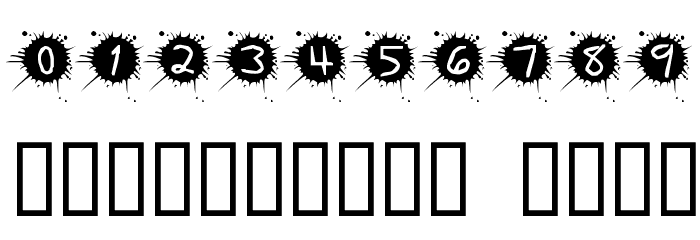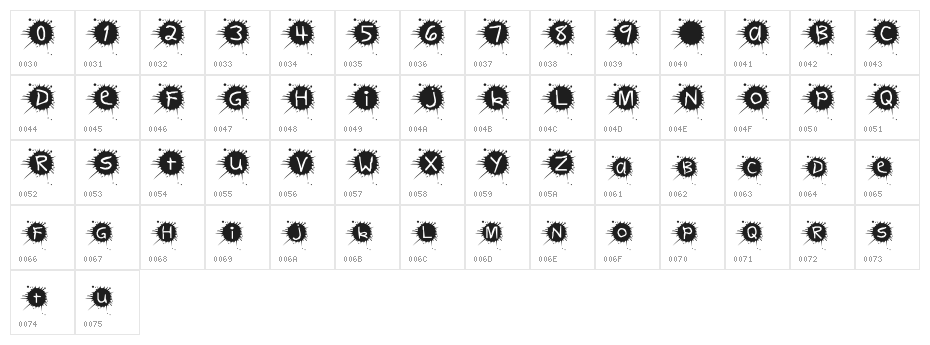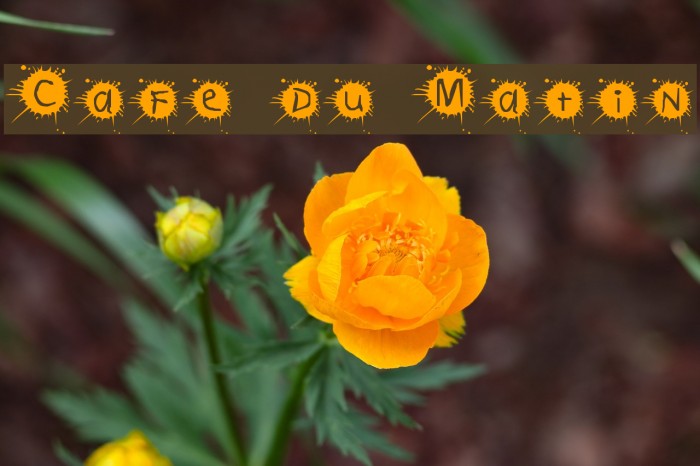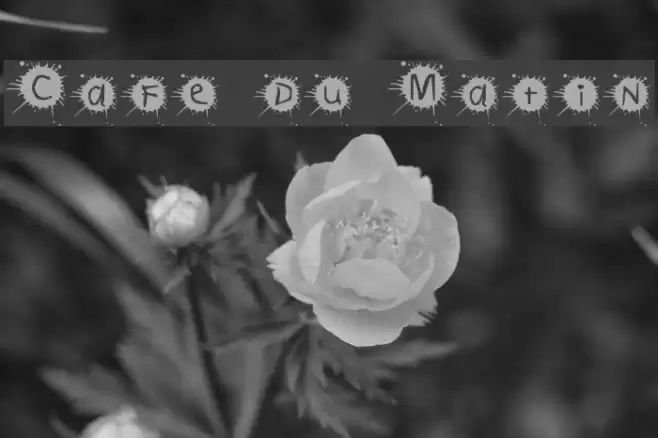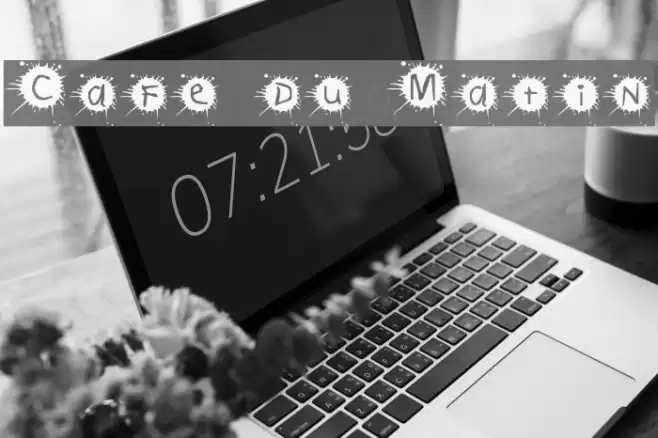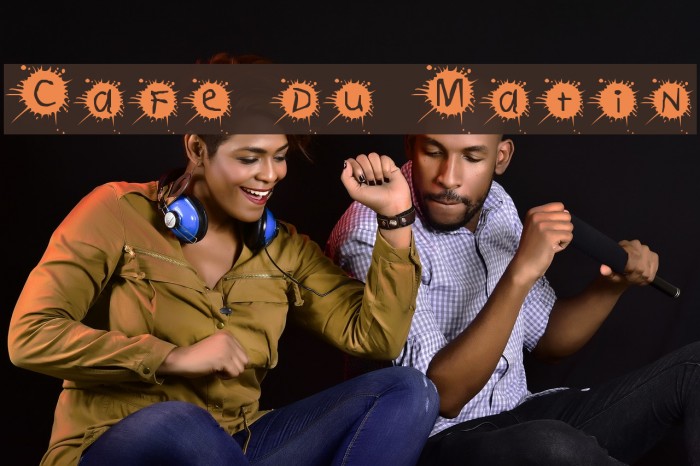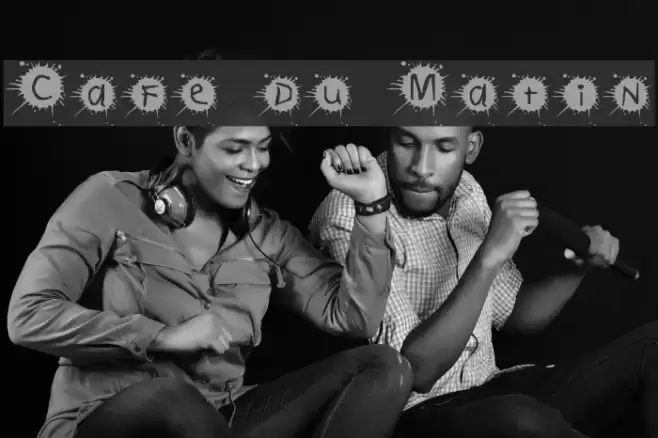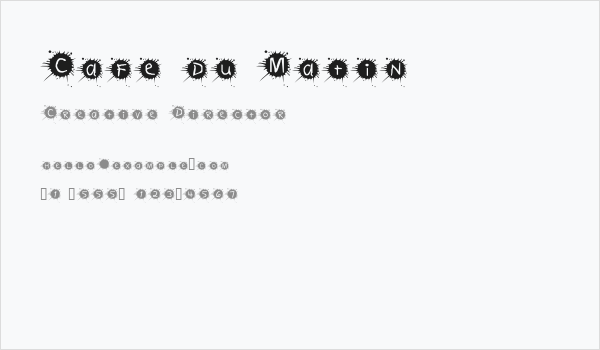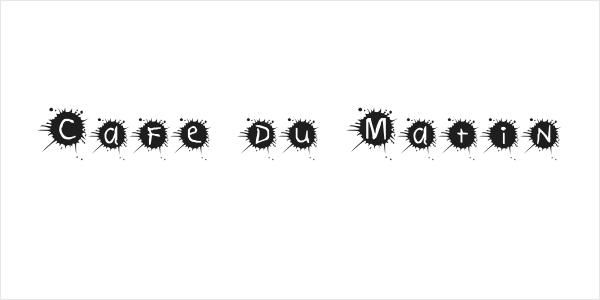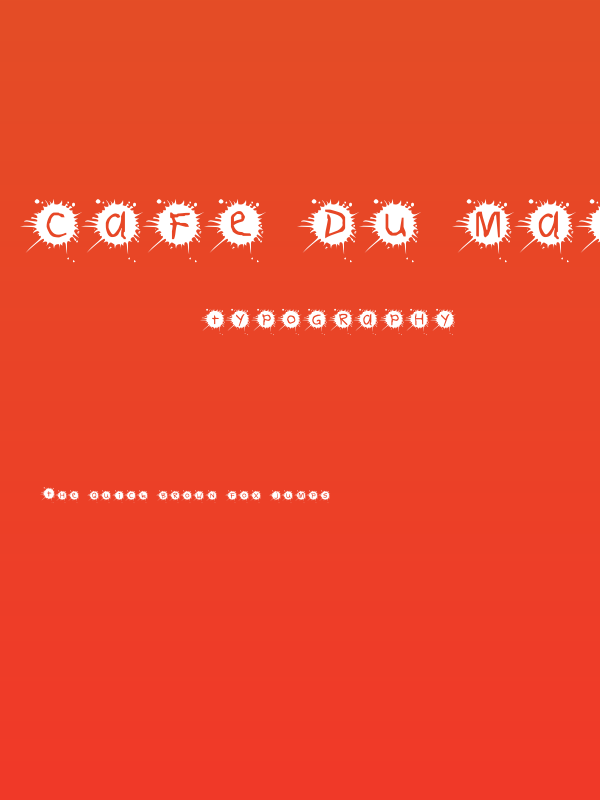
Cafe du Matin Font
Cafe du Matin Description
This font features a unique and playful design where each character is enclosed within a splatter-like shape, giving it a dynamic and energetic appearance. The letters are bold and stand out against the backdrop, making them highly visible and attention-grabbing. The style is reminiscent of graffiti art, with an urban and edgy feel. The characters are consistent in size and shape, maintaining a uniform look across the alphabet. This font is ideal for projects that require a fun and unconventional aesthetic, such as posters, flyers, or any creative design work that aims to capture a youthful and rebellious spirit.
| Overall Style | Urban, Edgy, Playful |
| Use Case | Headlines, Logos, Creative Designs |
| Proposed Projects | Ideal for posters, flyers, street art designs, and creative projects needing a bold statement. |